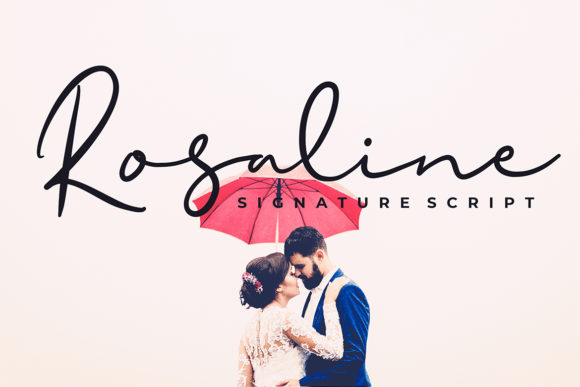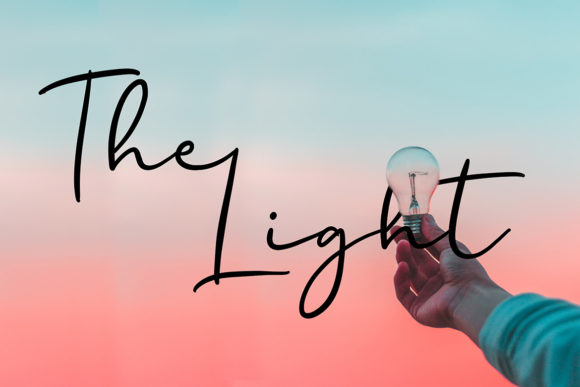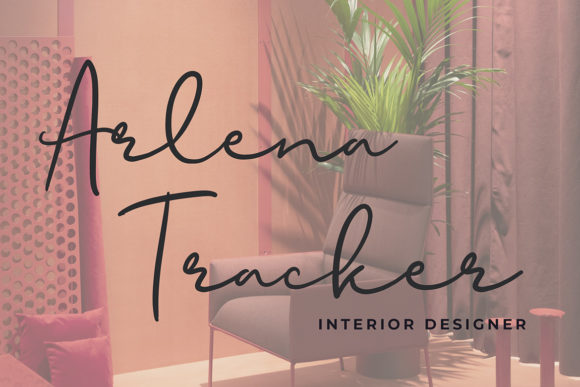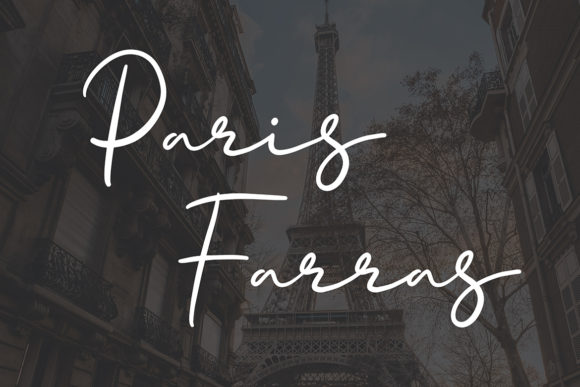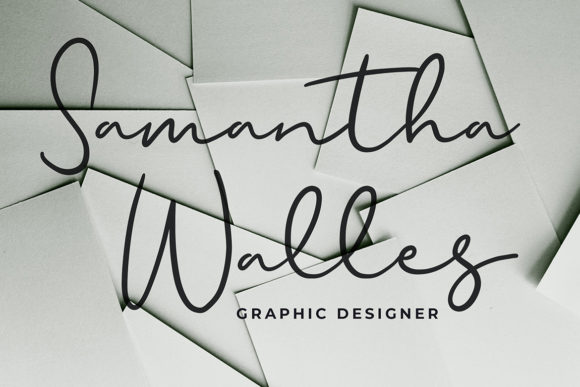
HomeScript FontsRosaline Font Script Fonts Rosaline Font FacebookXPinterestWhatsApp Rosaline Font Poster 2 Rosaline Font Poster 3 Rosaline Font Poster 4 Rosaline Font Poster 5 About Rosaline Font Rosaline is a classic script font with gorgeous lettering and a classy vibe. Get inspired by its effortless charm. DOWNLOAD ON CREATIVE FABRICAThis font is sold and delivered by Creative Fabrica. Font Canyon may earn a commission if you buy through this link. People also explored Knock Down Font Hannah Melanie Font Bookline Font Shungkara Font Jamilah Font The Amberton Font Starlight Font Marilota Font 315 0 TagsRosaline Font Previous articleBe Simply FontNext articleBrianna Qasim Font LEAVE A REPLY Cancel reply Comment: Please enter your comment! Name:* Please enter your name here Email:* You have entered an incorrect email address! Please enter your email address here Website: Save my name, email, and website in this browser for the next time I comment. Personal Use Free Cataclysmo Personal Use Free Read more about this font No Virus Personal Use Free Read more about this font Hallo Betty Personal Use Free Read more about this font Comic Caps Personal Use Free Read more about this font BLOG Best Fonts for T-Shirt Design – Top 2025 Picks In 2025, t-shirt design has become more than just fashion—it's a form of self-expression. Whether you're... Using Fonts in Digital Marketing: Tips to Strengthen Your Brand Identity Exploring Font Trends Elegant Wedding Invitation Fonts – Handwritten & Script Fonts